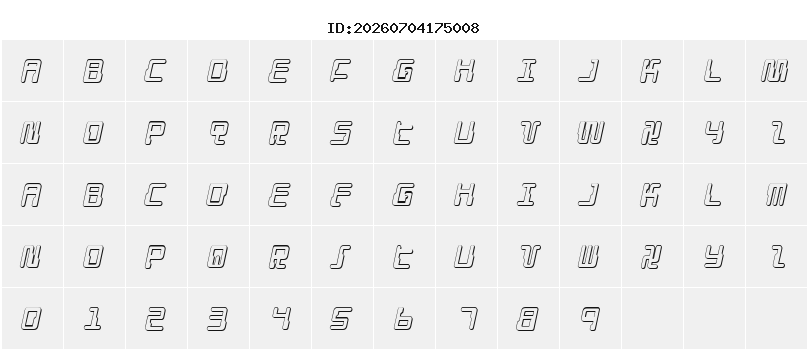
About Droid Lover 3D Italic.ttf
Droid Lover 3D Italic.ttf is a modern, elegant sans-serif font designed for ultimate readability and visual harmony. Perfect for branding, headlines, web design, and print materials.